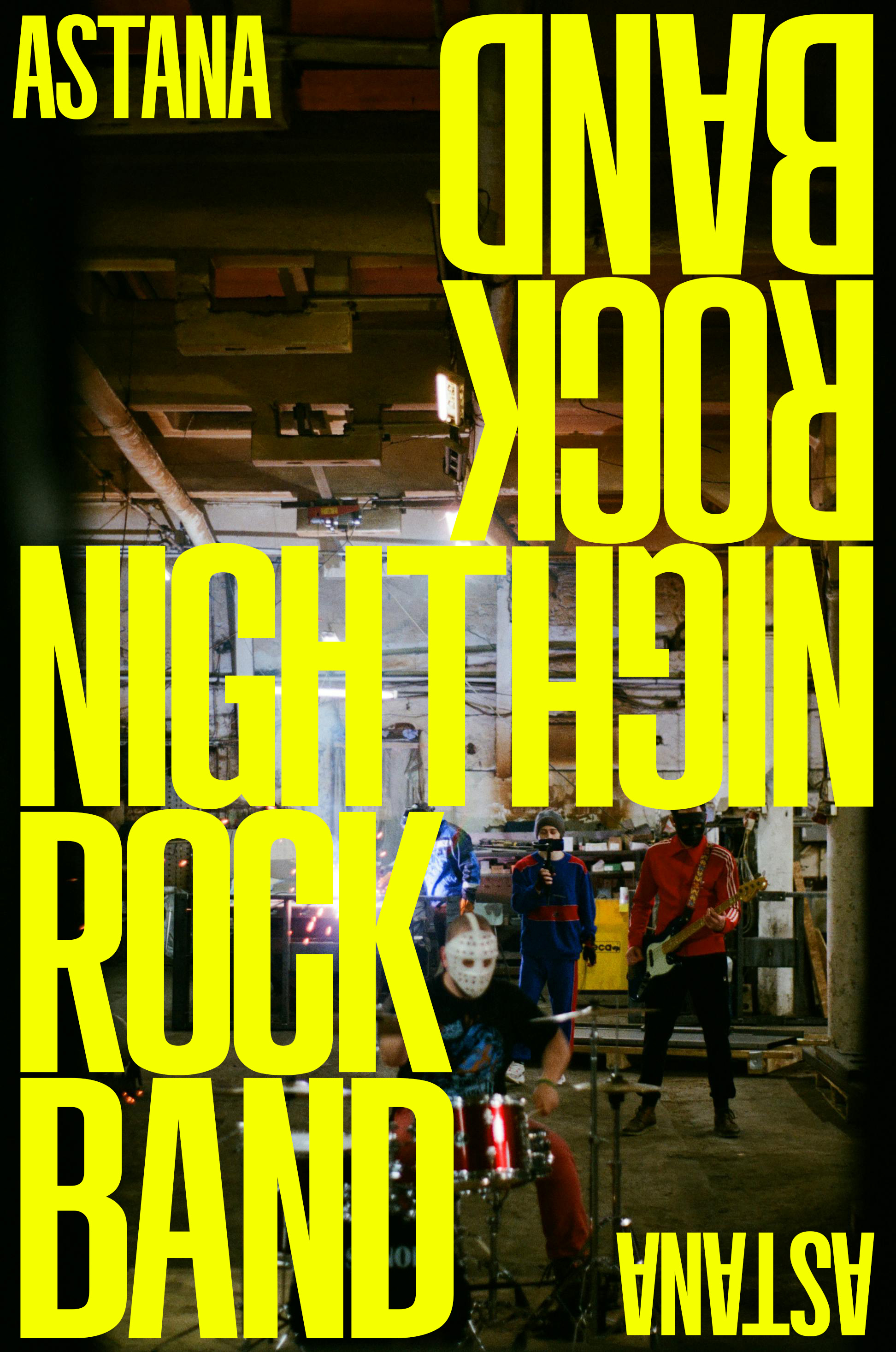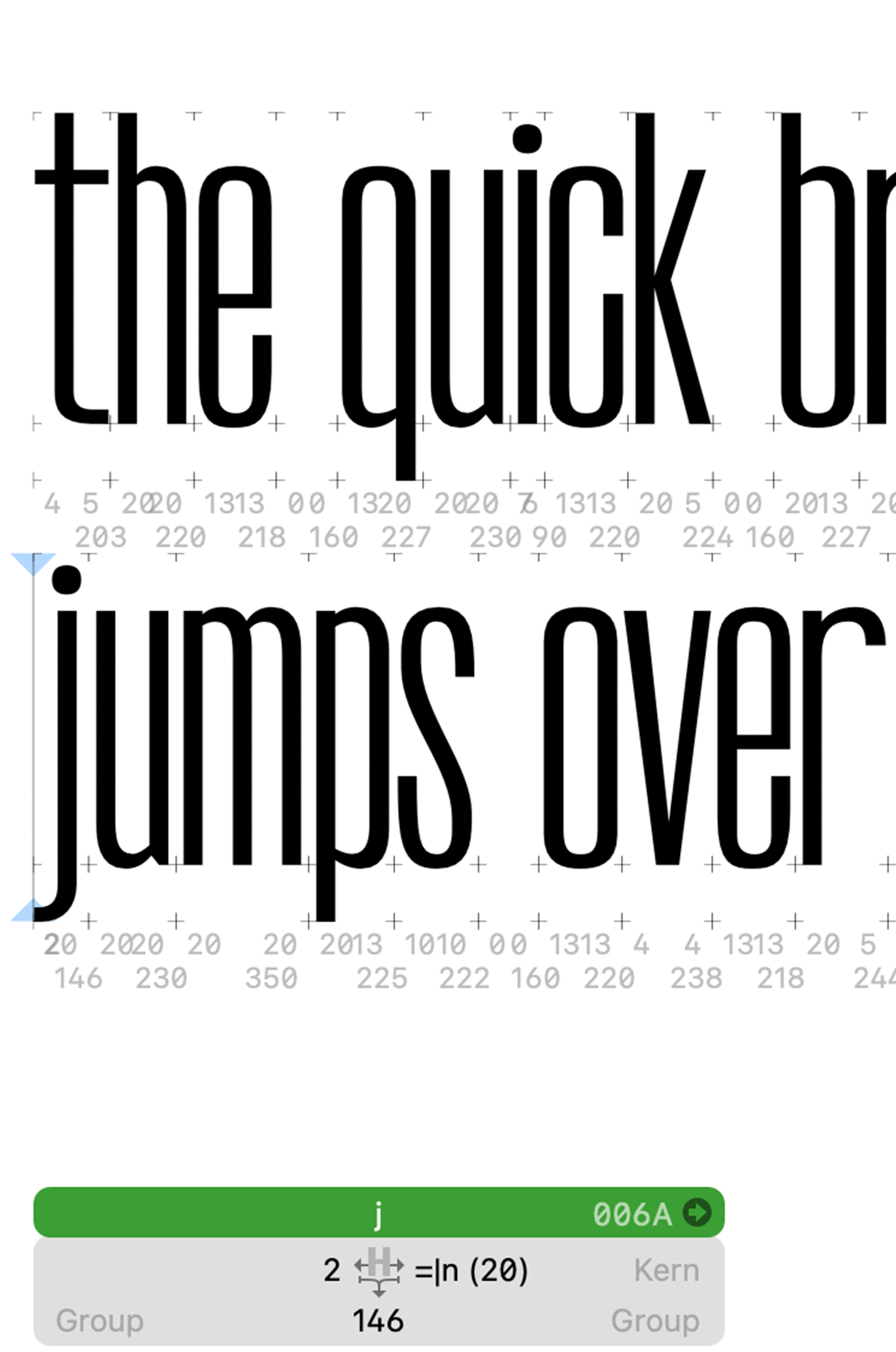
I create typeface Library Sans. Is narrow and variable very condensed sans-serif font.
Use Glyphs for vectorize typeface
This project is Typeface for social media, merchandising, for musical bands, for films poster and intros, for ads and others.